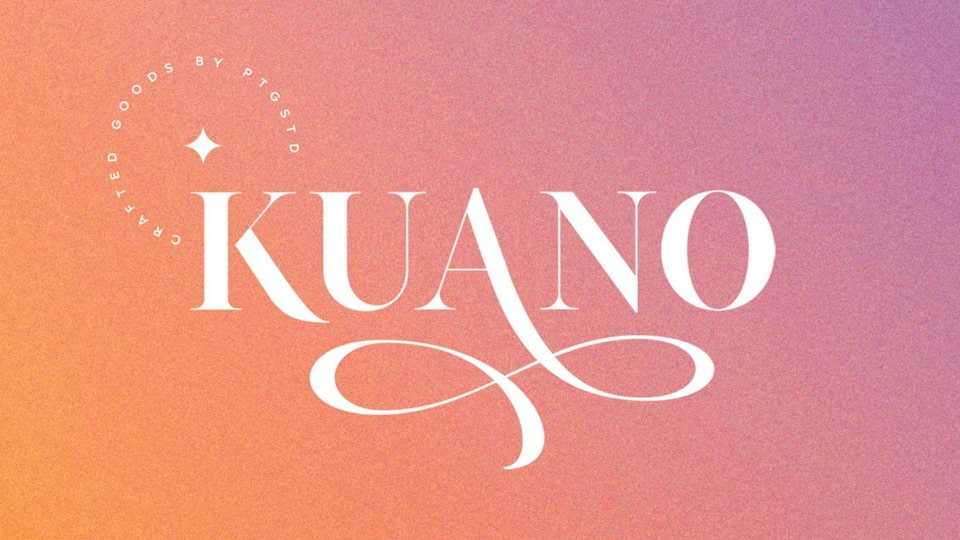
Download Kuano font, an elegant high contrast serif typeface inspired by modern typography trends. Kuano is perfect for book covers, magazines, wedding cards, dazzling posters, clothing, perfumes, wine labels and logos of all kind.